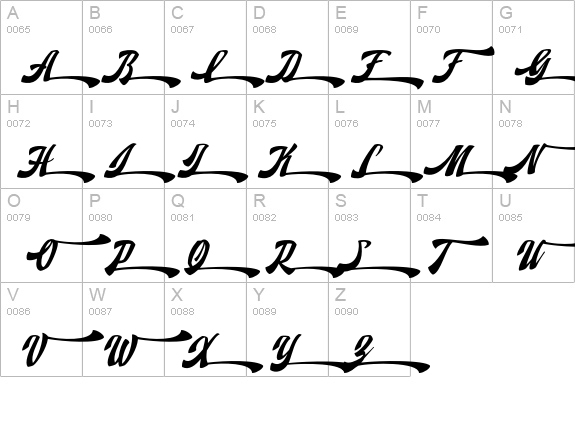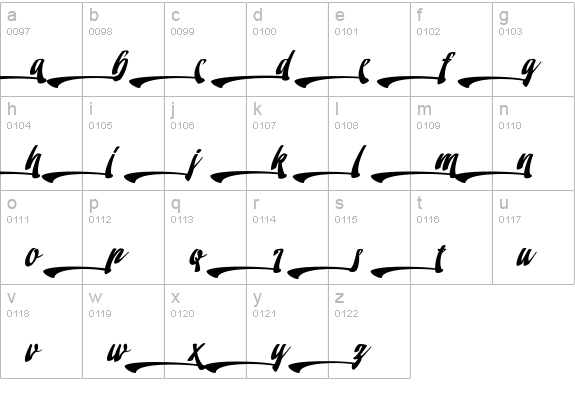
Doedel Alternate 4 Multiple Font Details
Doedel Alternate 4 Multiple font is a stunning display font that exudes creativity and uniqueness. Its intricate design and playful aesthetic make it perfect for a wide range of projects, from branding to packaging and more. This font features multiple alternate characters that add a dynamic touch to your designs, giving them a distinctive look. Best of all, Doedel Alternate 4 Multiple font is available for free download at FontsMarket.com, making it accessible to all designers looking to add a touch of fun and individuality to their work. Don't miss out on this fantastic font that will surely make your designs stand out!